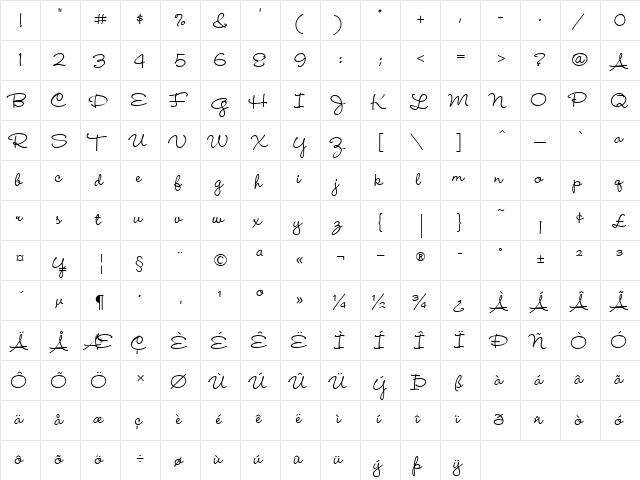
WendyLP-Medium Medium
Design Context for WendyLP-Medium Typeface
WendyLP-Medium takes a measured approach to typography — its balanced proportions and neutral character make it a reliable workhorse for both digital and print work.